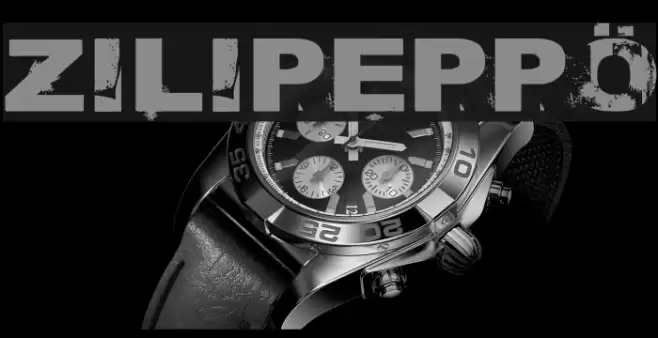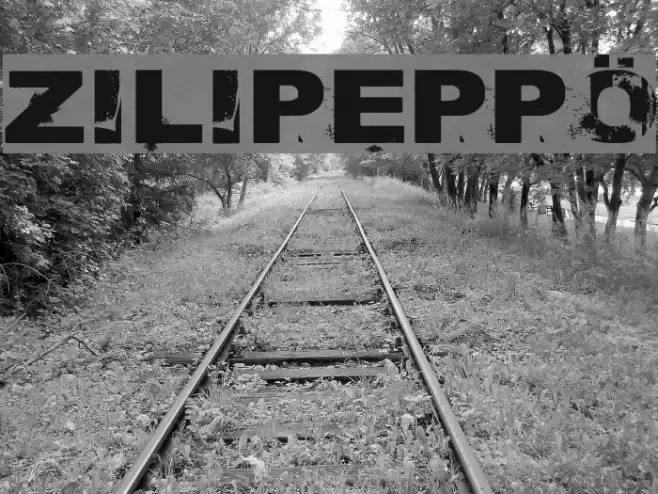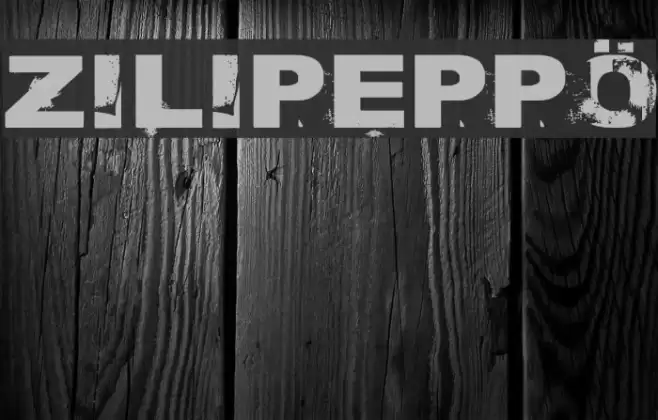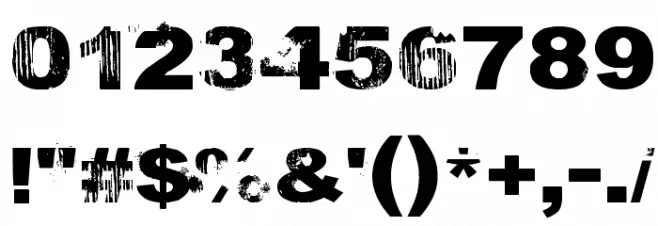
Zilipeppö Font
Zilipeppö Description
This font features a bold, distressed style with a grunge effect that gives it a worn and rugged appearance. The characters are uppercase and numerals, with a heavy weight that makes them stand out. The distressed texture varies across each character, adding a unique and dynamic feel. This font is ideal for projects that require a strong, impactful look with a touch of edginess. The spacing between characters is normal, allowing for readability while maintaining its bold presence.
A bold, distressed font with a grunge effect, perfect for impactful designs from Uncategorized fonts.
- Proposed Projects: Ideal for posters, album covers, urban-themed designs, and any project needing a bold, edgy aesthetic.
- Overall Style: Grunge, Edgy, Bold